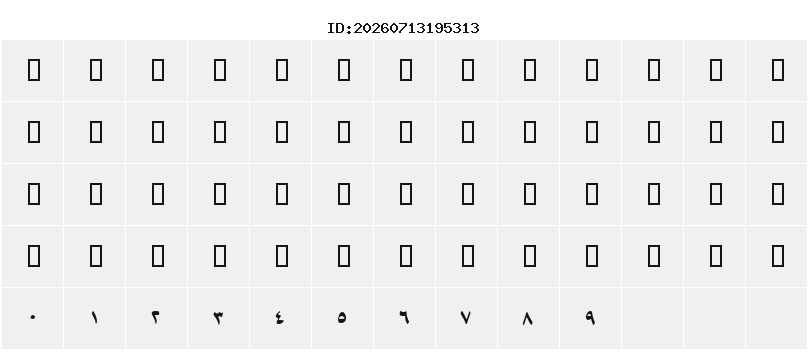
• Font Name: B Arabic Style
• Font ID: Borna Arabic Style
• Full Font Name: B Arabic Style
• PostScript Name: BArabicStyle
About B Arabic Style.ttf
B Arabic Style.ttf is a modern, elegant sans-serif font designed for ultimate readability and visual harmony. Perfect for branding, headlines, web design, and print materials.